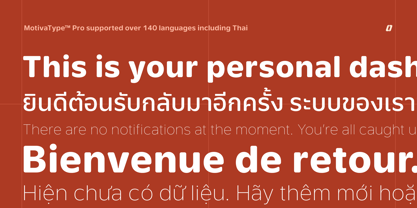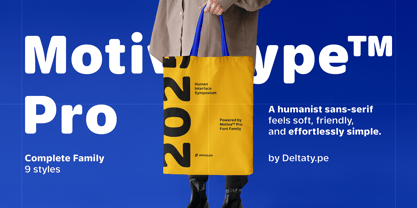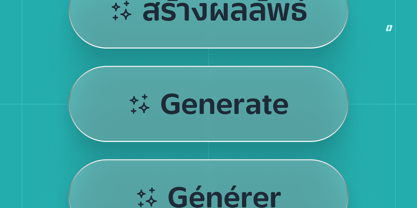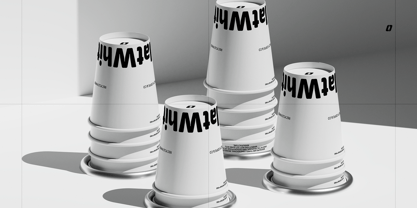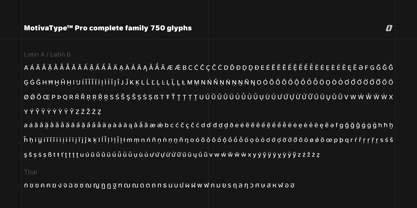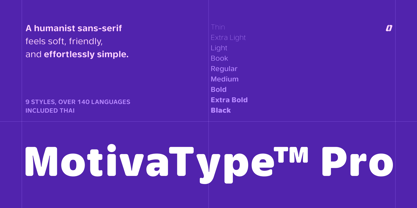
MotivaType Pro
by Deltatype
The MotivaType Pro Font Family was designed by Kwanchai Akkaratammagul, Phatcharaphat Chatthawatthanathon and published by Deltatype. MotivaType Pro contains 9 styles and family package options. More about this family
A humanist sans-serif feels soft, friendly, and effortlessly simple.
Meet Motiva™ Pro — a soft-spoken yet confident humanist sans-serif that brings warmth and clarity to your digital world. With its gently rounded edges and balanced proportions, Motiva™ Pro feels approachable, friendly, and quietly intelligent.
Designed with digital interfaces in mind, Motiva™ Pro performs seamlessly across your favourite design tools and development environments. It follows the standard CSS font-weight system with nine carefully crafted weights, making it an ideal choice for UI design and front-end deployment.
Supporting over 140 languages, including Thai, Motiva™ Pro bridges the emotional gap between human and digital—inviting a more human touch to every pixel. Simple, sincere, and designed to feel just right.
Designers: Kwanchai Akkaratammagul, Phatcharaphat Chatthawatthanathon
Foundry: Deltatype